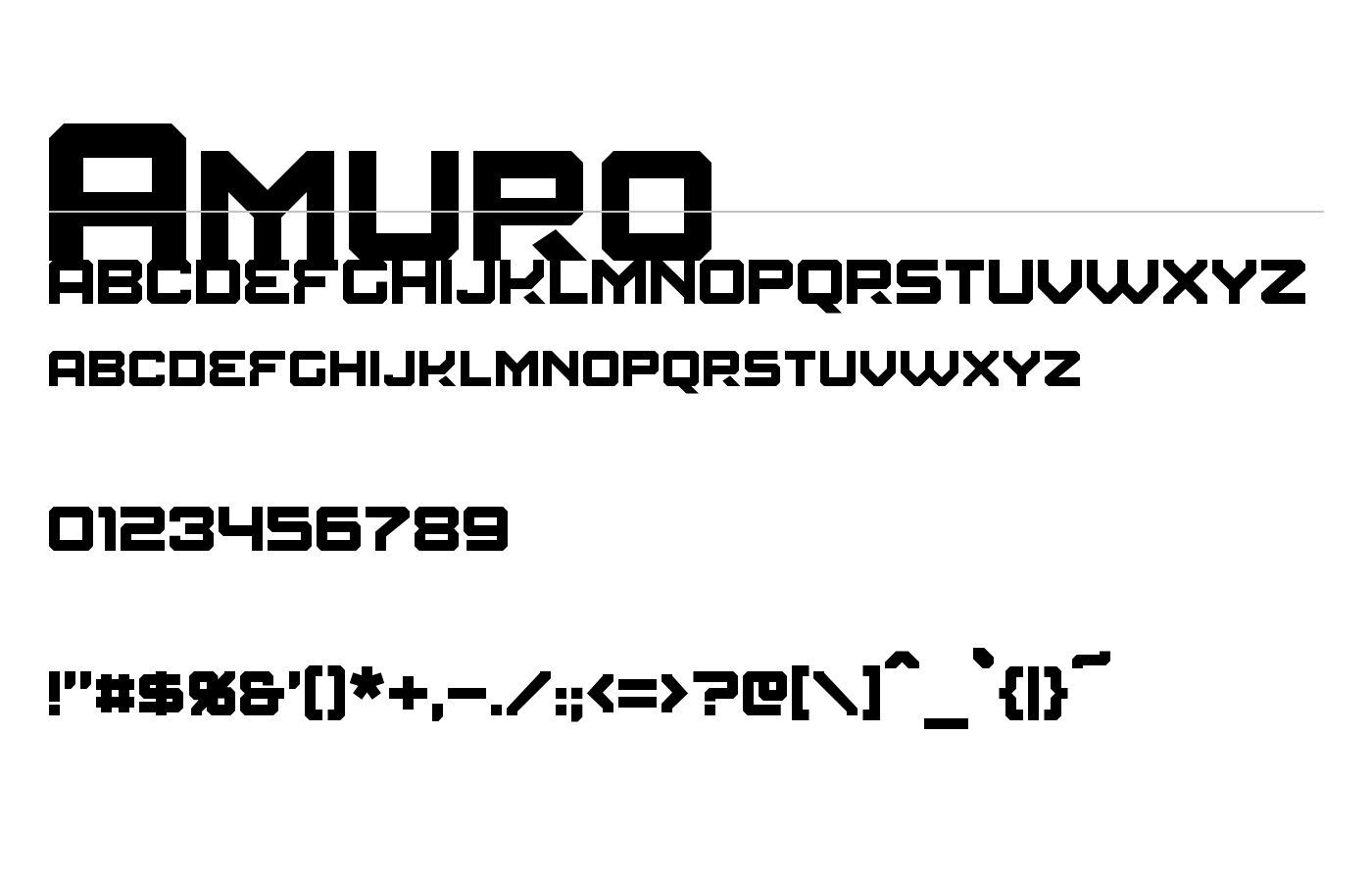
Amuro is a bold, geometric sans serif font with a futuristic and tech-inspired look. Its strong, angular letterforms and consistent stroke weight create a powerful and modern presence, making it ideal for striking headlines, logos, and digital designs that require a cutting-edge yet readable style. This font works well for brands and projects seeking a sleek, innovative, and confident visual identity.
Amuro Font
About Amuro Font
| Font family | Amuro Font |
| Designer | Neale Davidson |